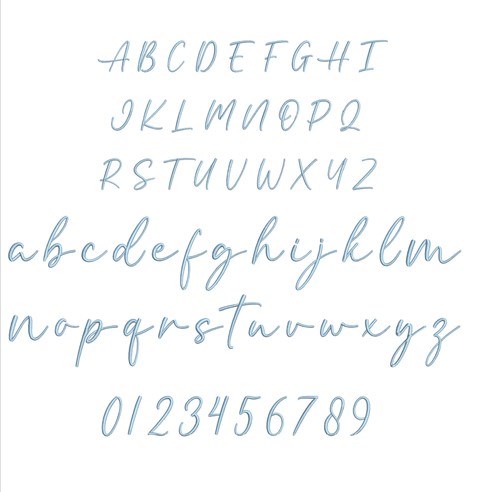
Unicorn Creatives is happy to present Michelle Embrilliance Font machine embroidery font which has Flowing script machine embroidery font, ideal for personalizing items like bags and blankets. The stunning light blue letters form the name 'Michelle'. Available in BX font and Embrilliance formats. included. If you would like to view more embroidery fonts and alphabets please search our embroidery fonts page.